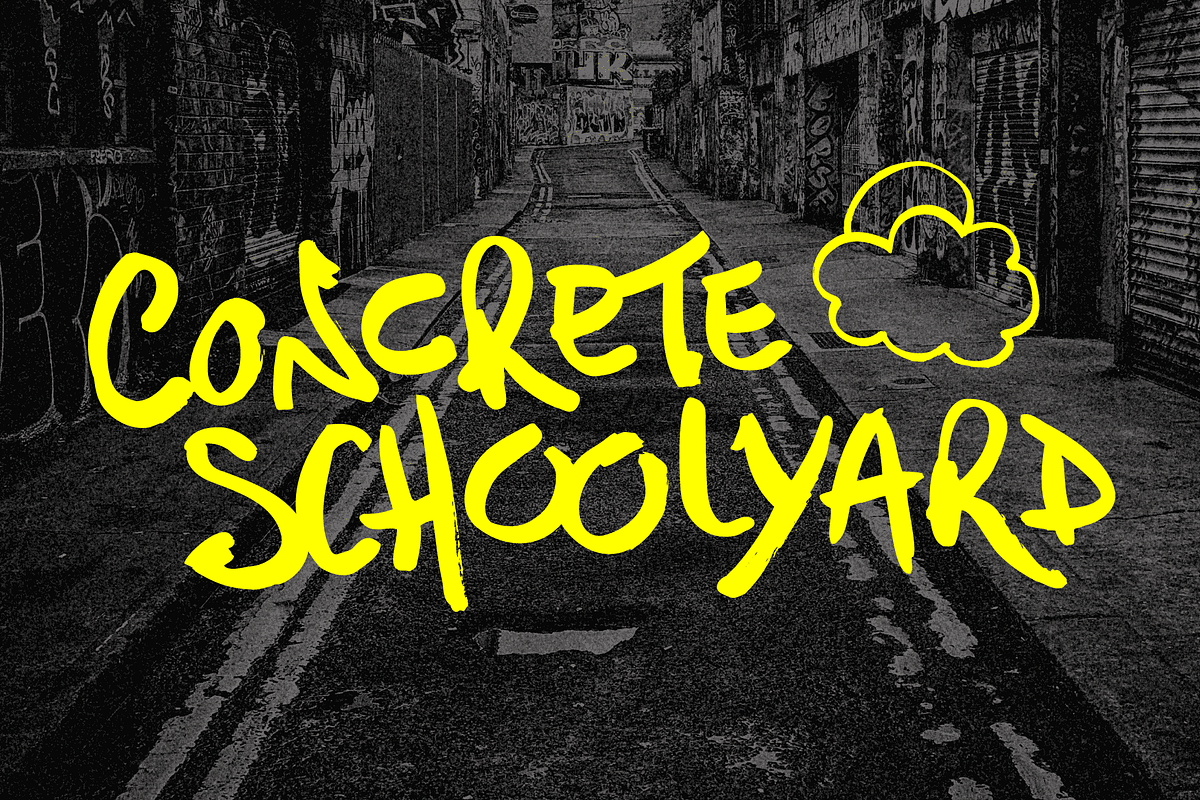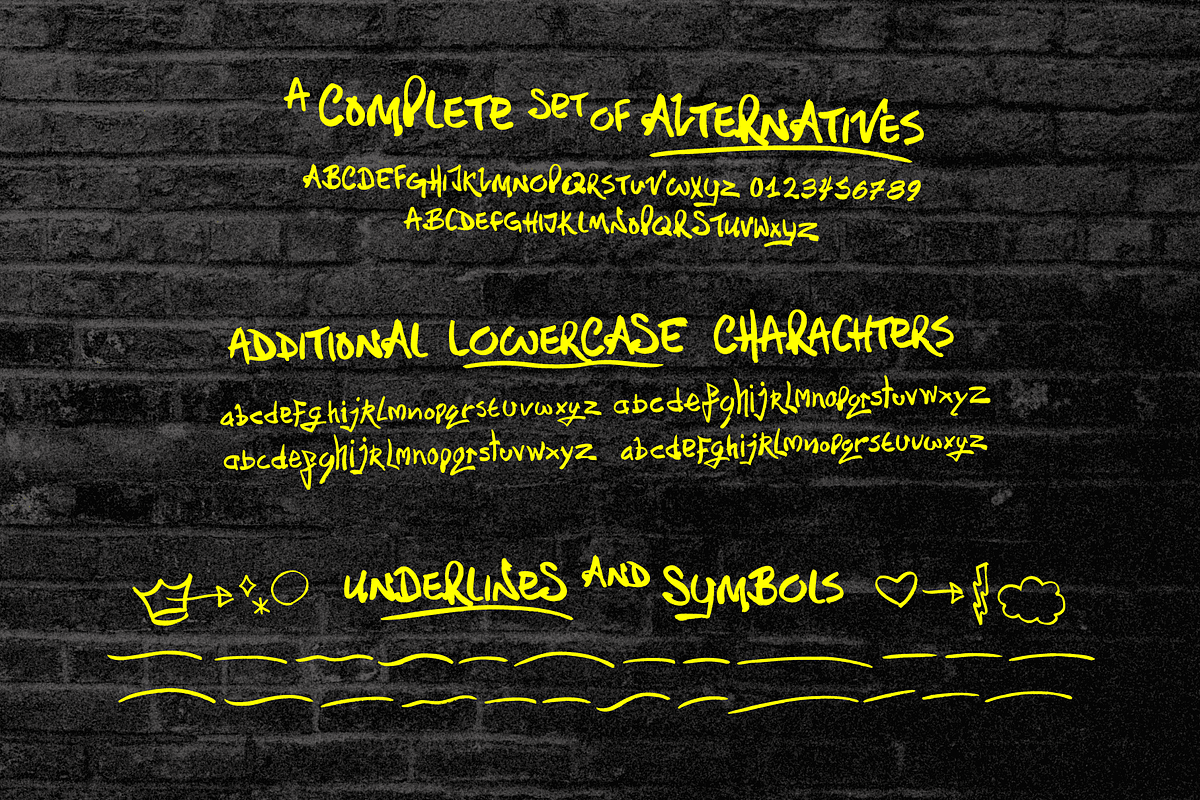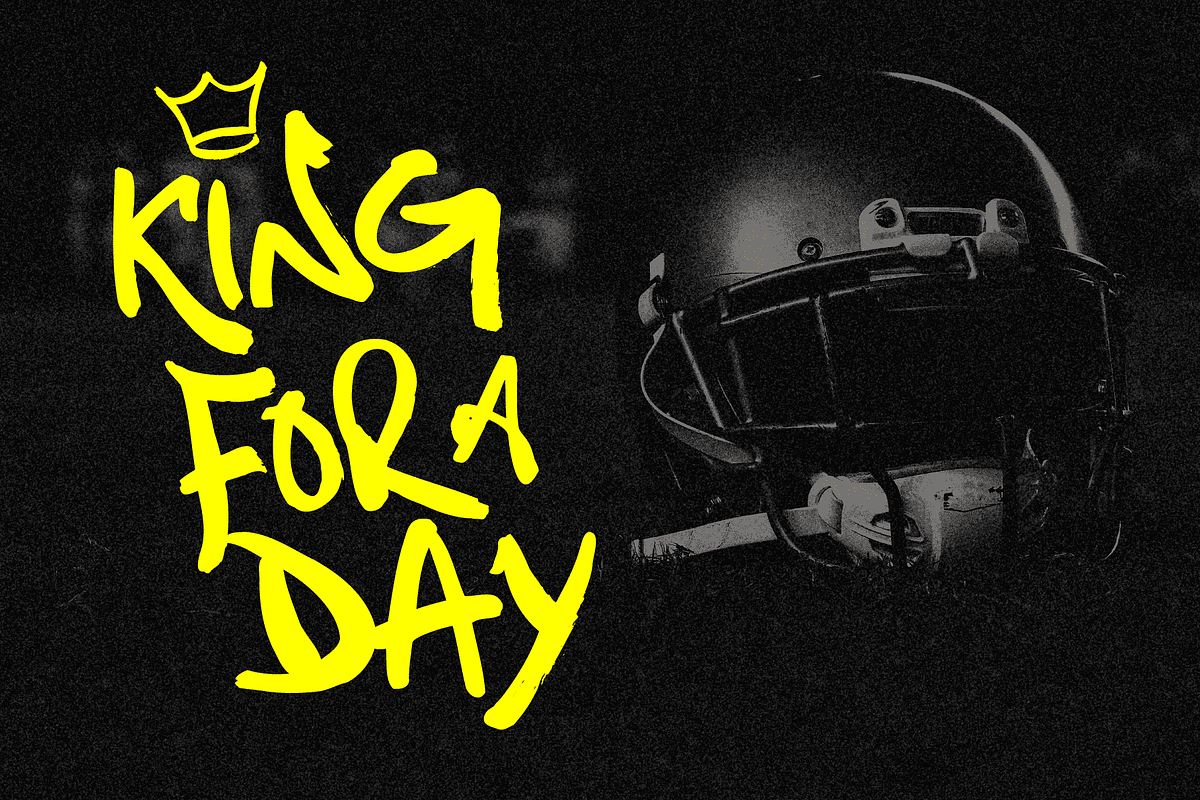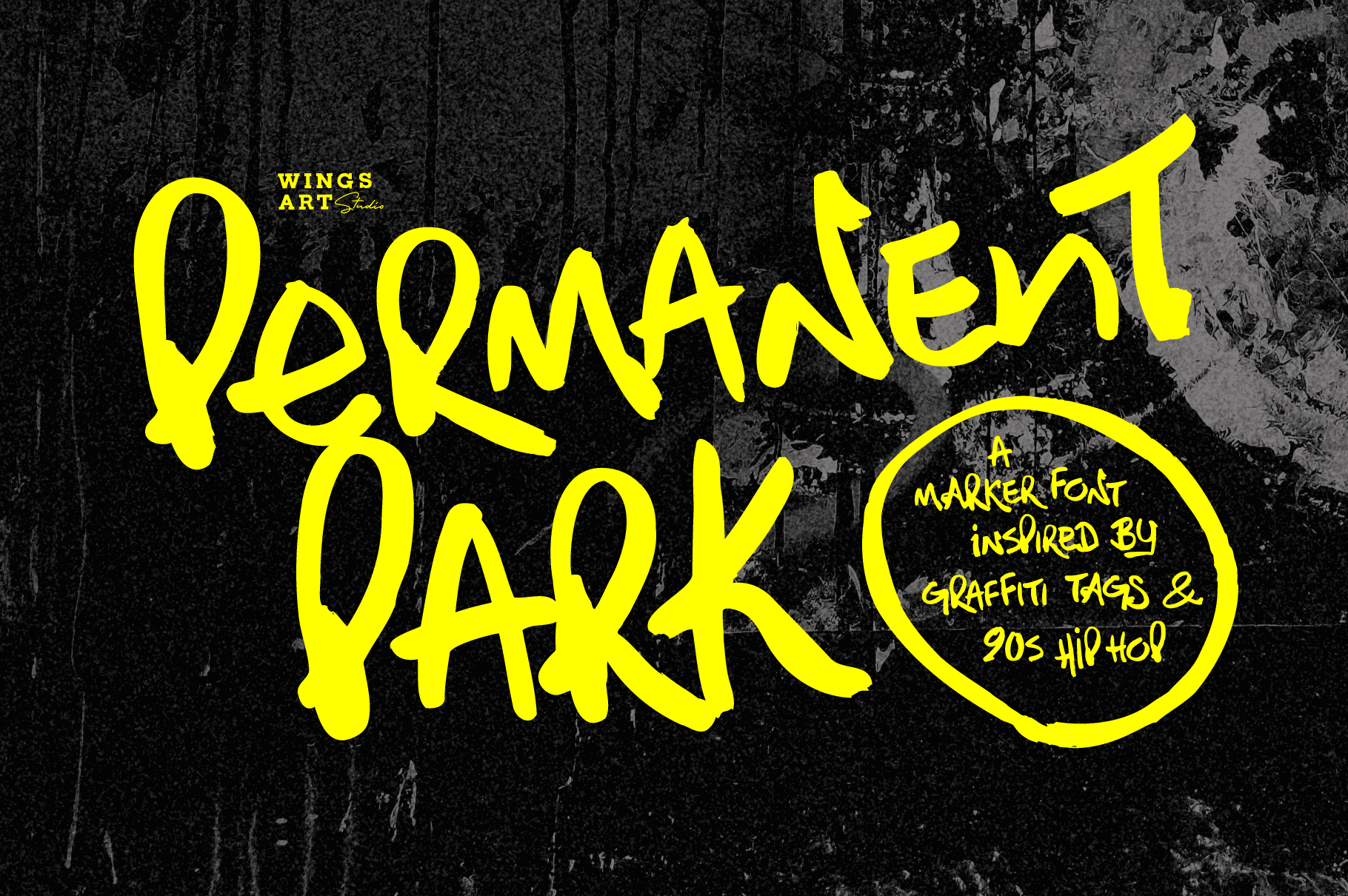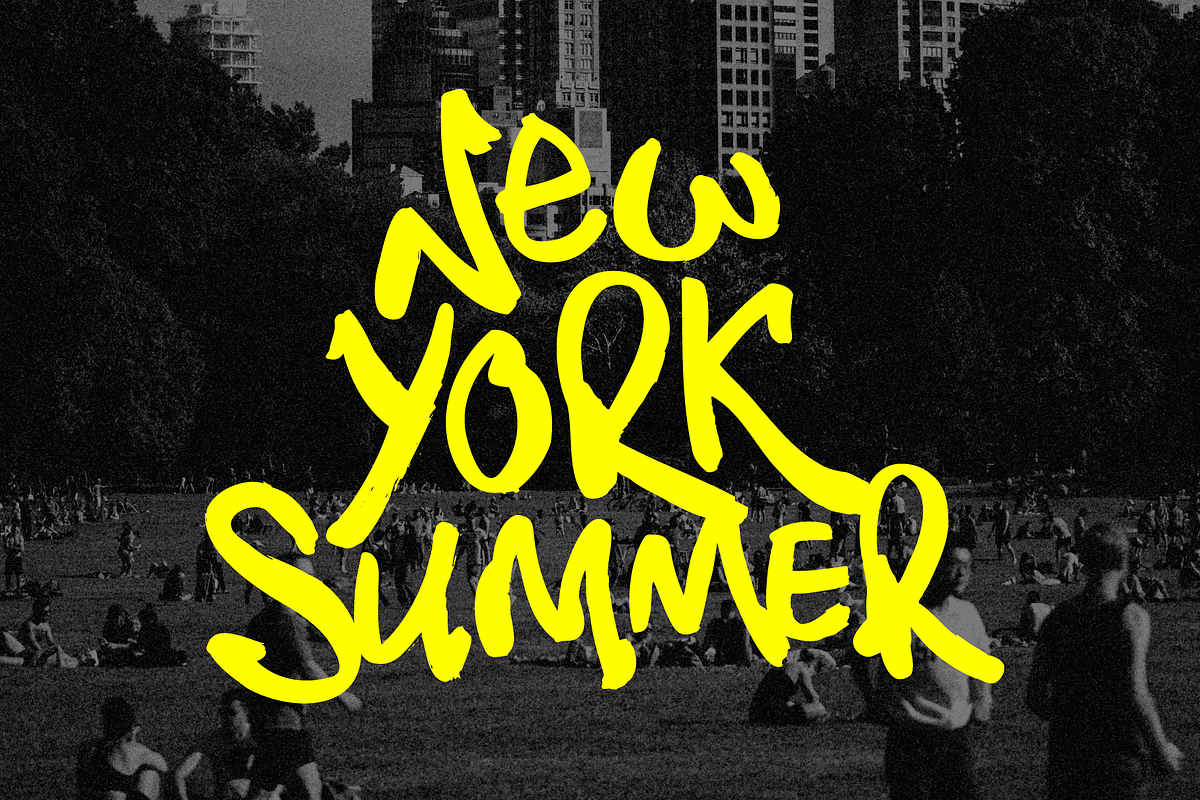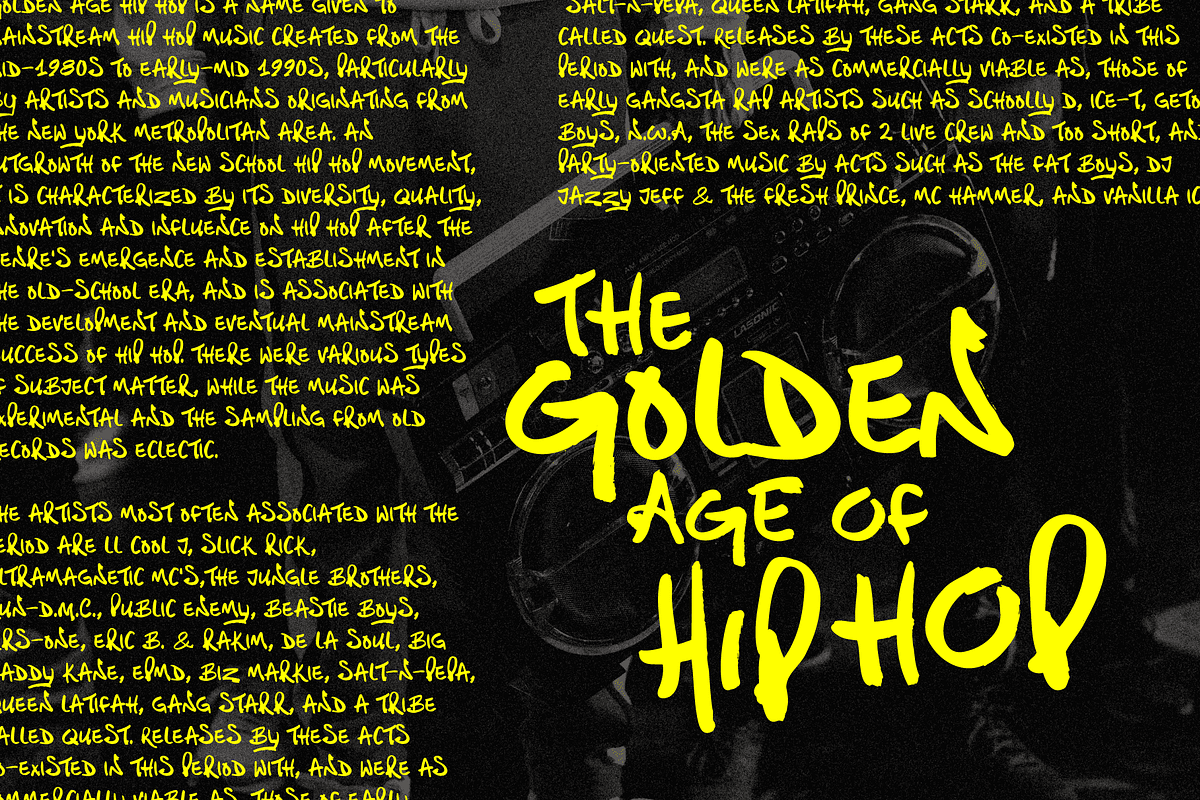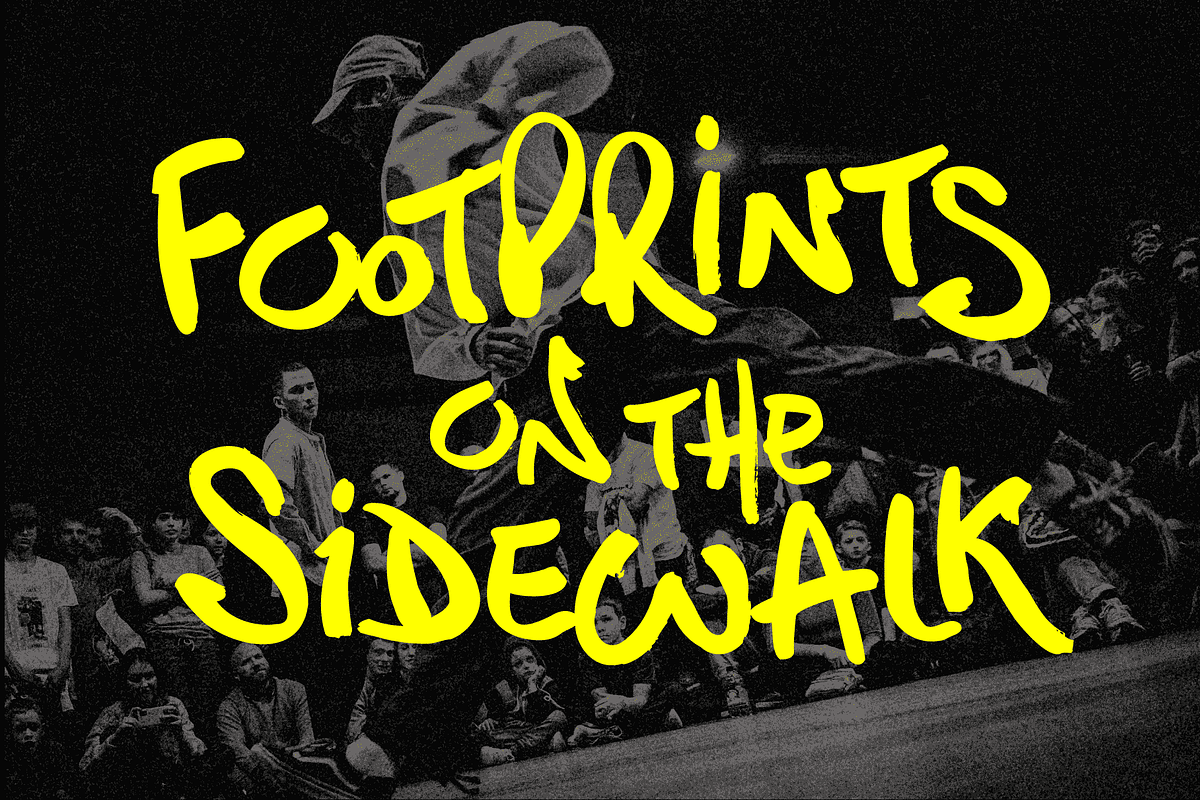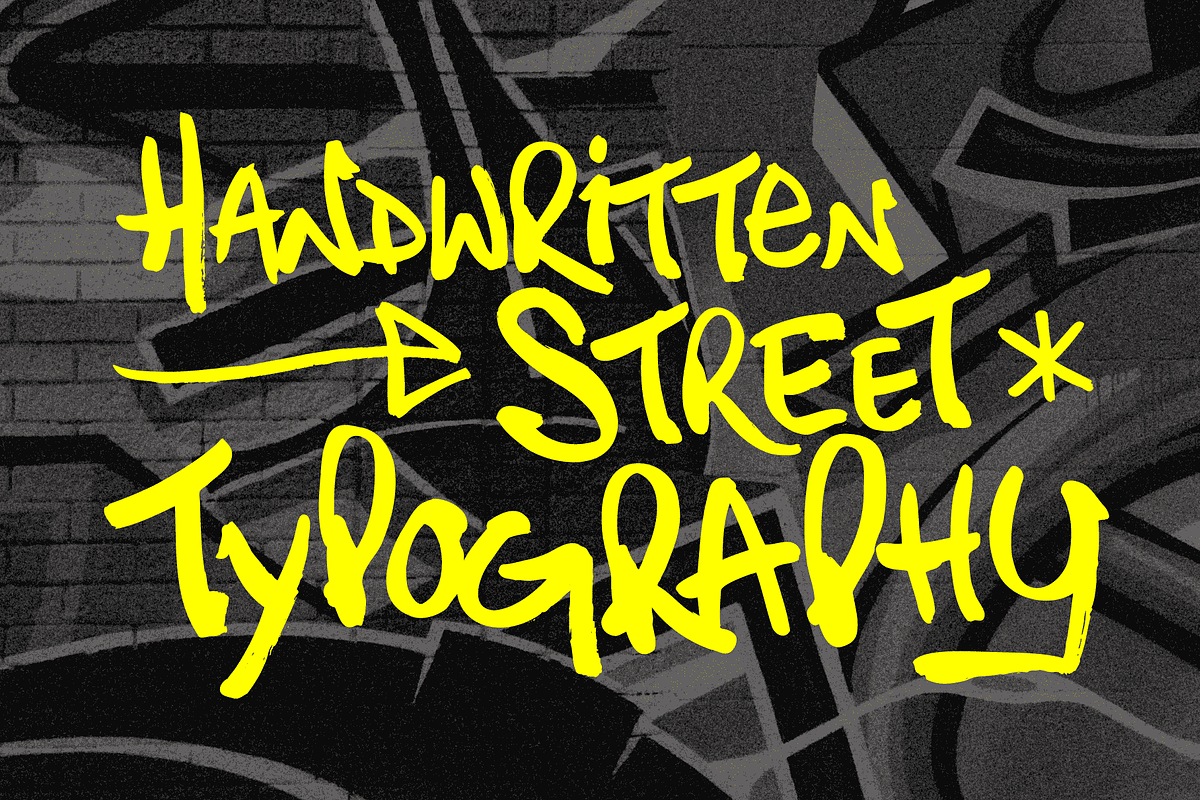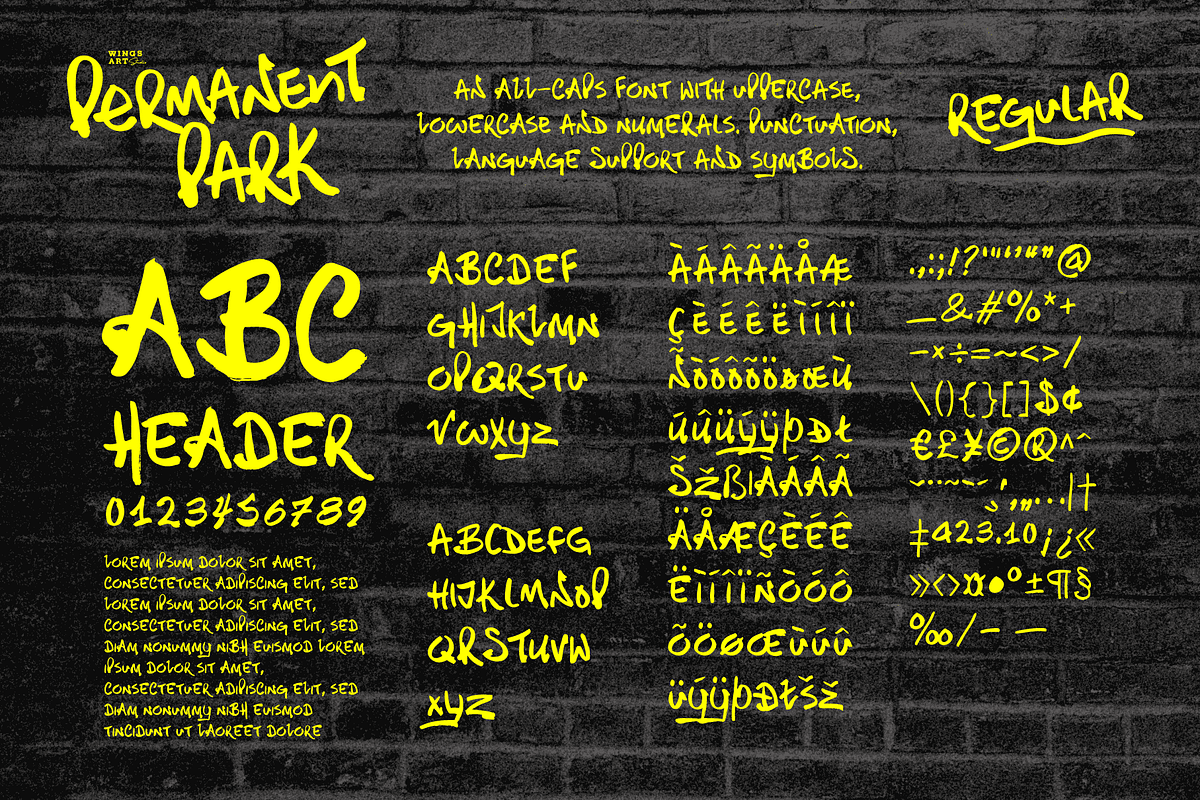
Permanent Park - 90s Graffiti Font
A hand-drawn marker pen font inspired by graffiti tags and 1990s Hip Hop.
Permanent Park is a marker pen font with a graffiti tag aesthetic inspired by the golden-age of Hip Hop and 1990s TV shows. It’s 100% hand-drawn and comes packed with alternative characters for creating truly natural looking type treatments. No repeated oo’s, ee’s and ll’s that are a dead give-away of lazy lettering!
Permanent Park is a highly customisable all-caps design featuring a complete set of uppercase and lowercase characters, along with numerals, punctuation and language support. It also features a complete set of alternatives with additional lowercase characters (for mixing things up even more), and a selection of underlines and symbols for an illustrative flourish.
It’s a uniquely fun, urban looking font, typical of 90s music videos and TV shows, and equally suited to sports, travel and food themes. Check out my visuals for ideas on how you might use it on posters, movie titles, product packaging, broadcast and advertising.